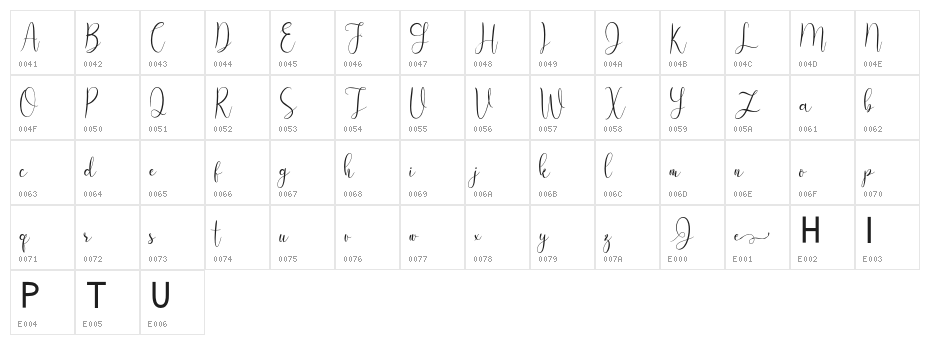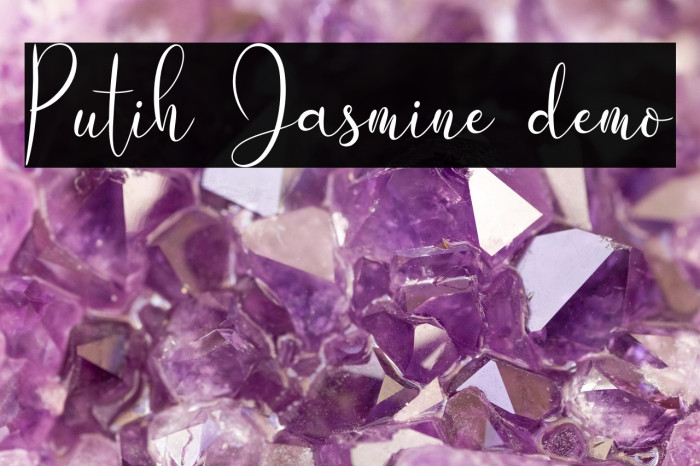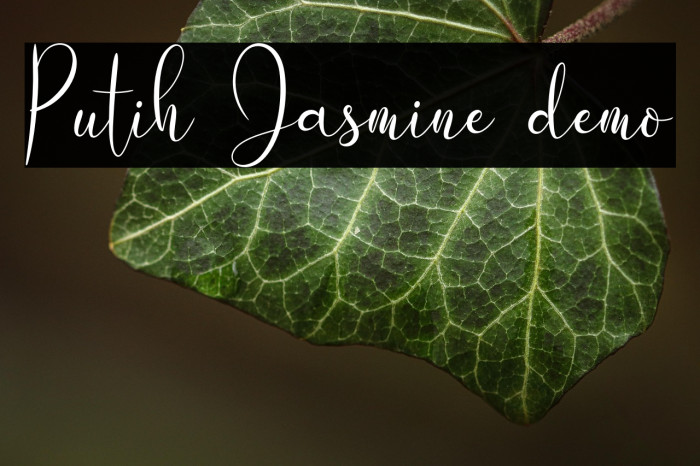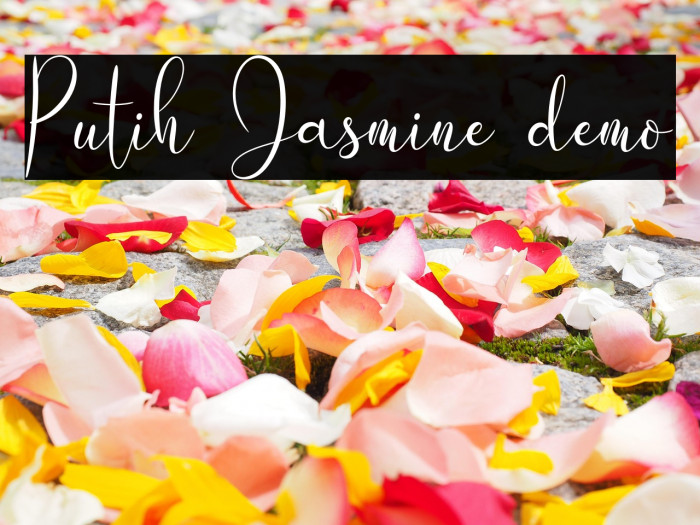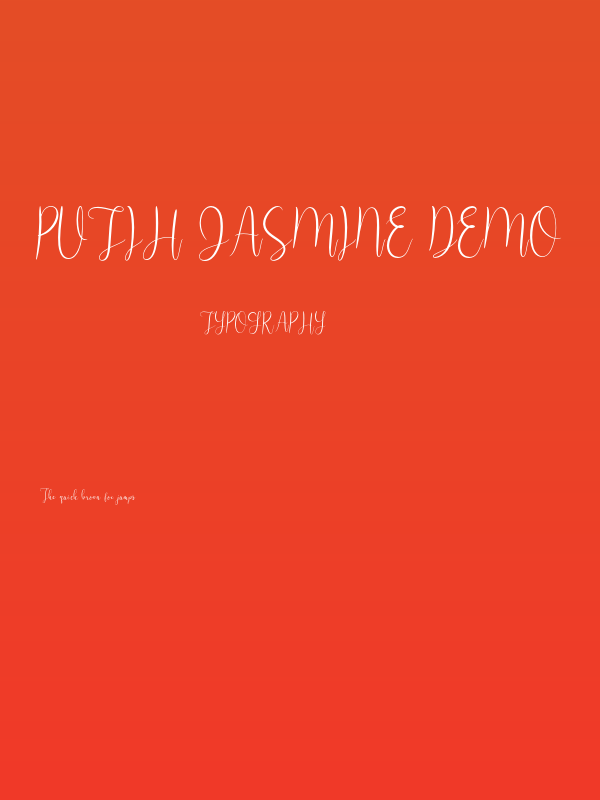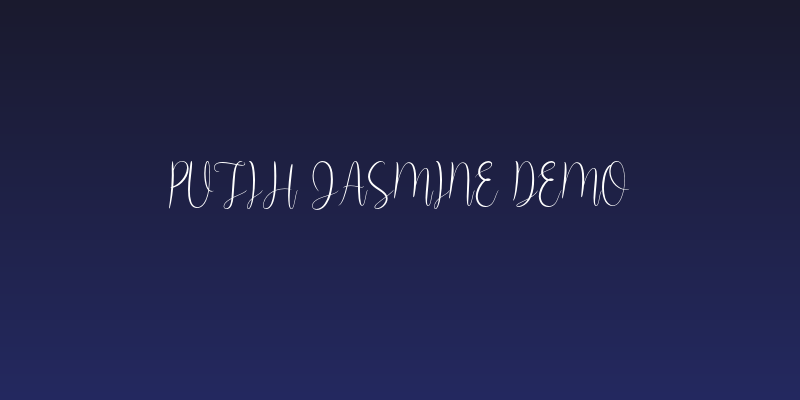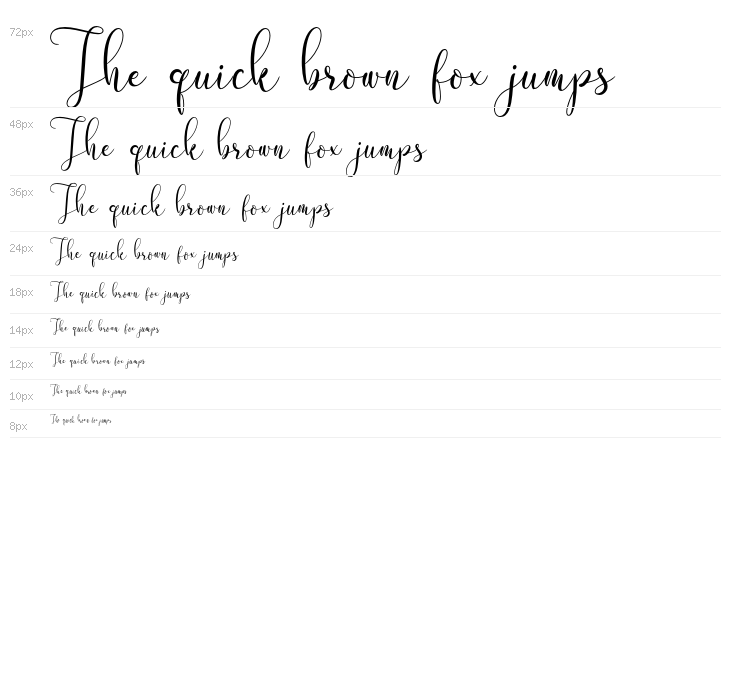
Putih Jasmine demo Font
Putih Jasmine demo Description
This font features an elegant and flowing script style, characterized by its smooth, cursive lines and graceful curves. The uppercase letters are tall and slender, with a slight slant that adds a touch of sophistication. The lowercase letters maintain a consistent flow, enhancing readability while preserving the decorative nature of the script. The font's overall appearance is delicate yet impactful, making it suitable for a variety of creative applications. The absence of special characters and numbers suggests a focus on artistic expression rather than practicality, emphasizing its use in design-oriented projects.